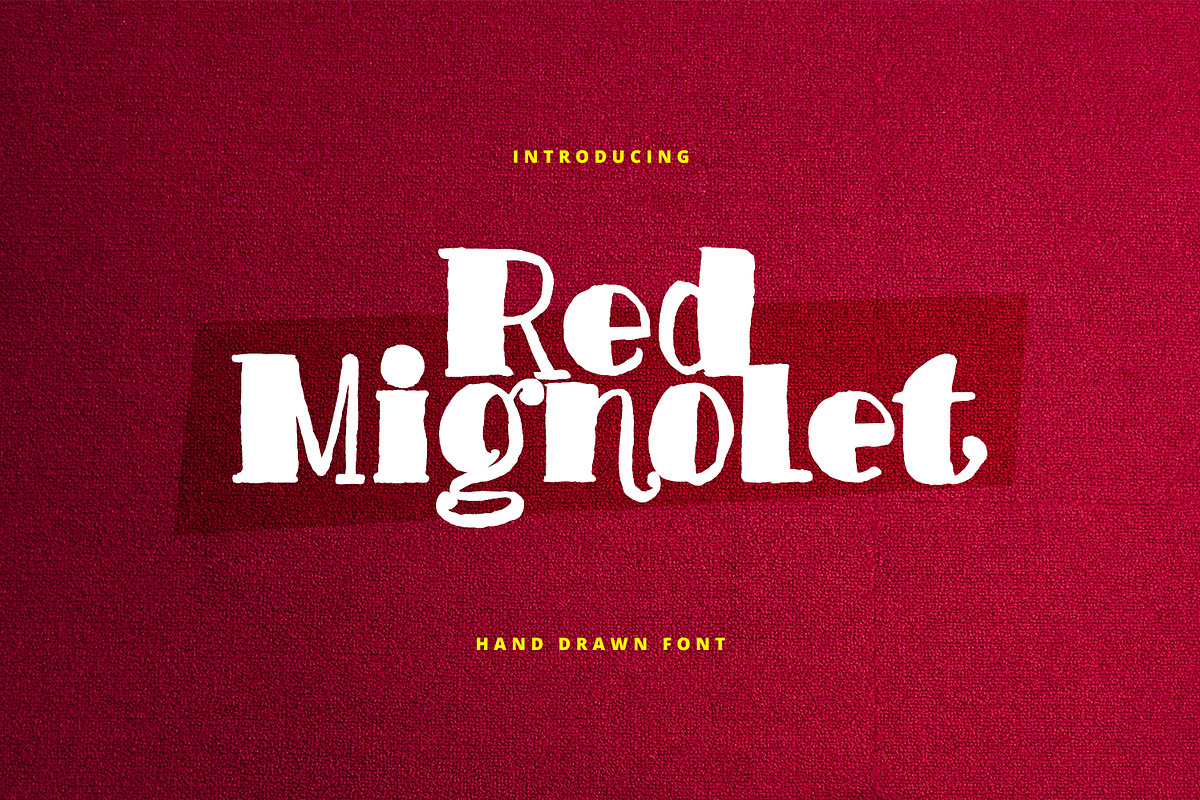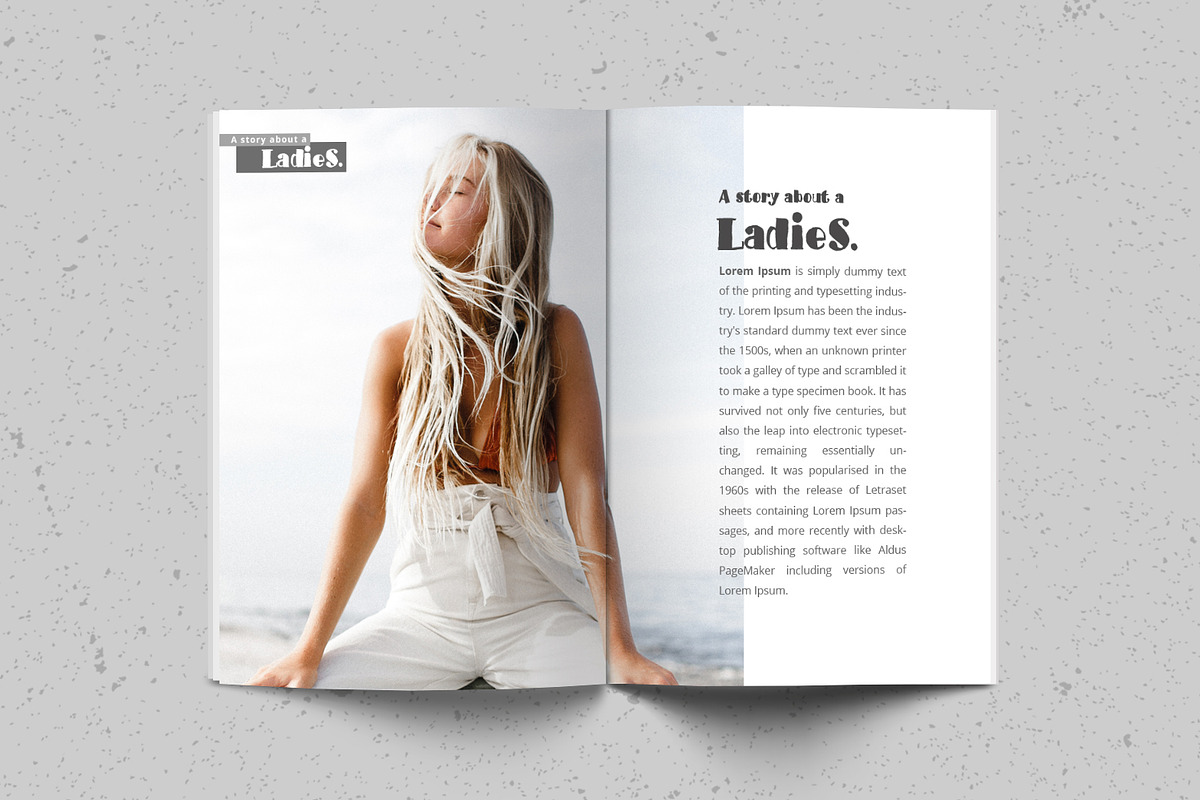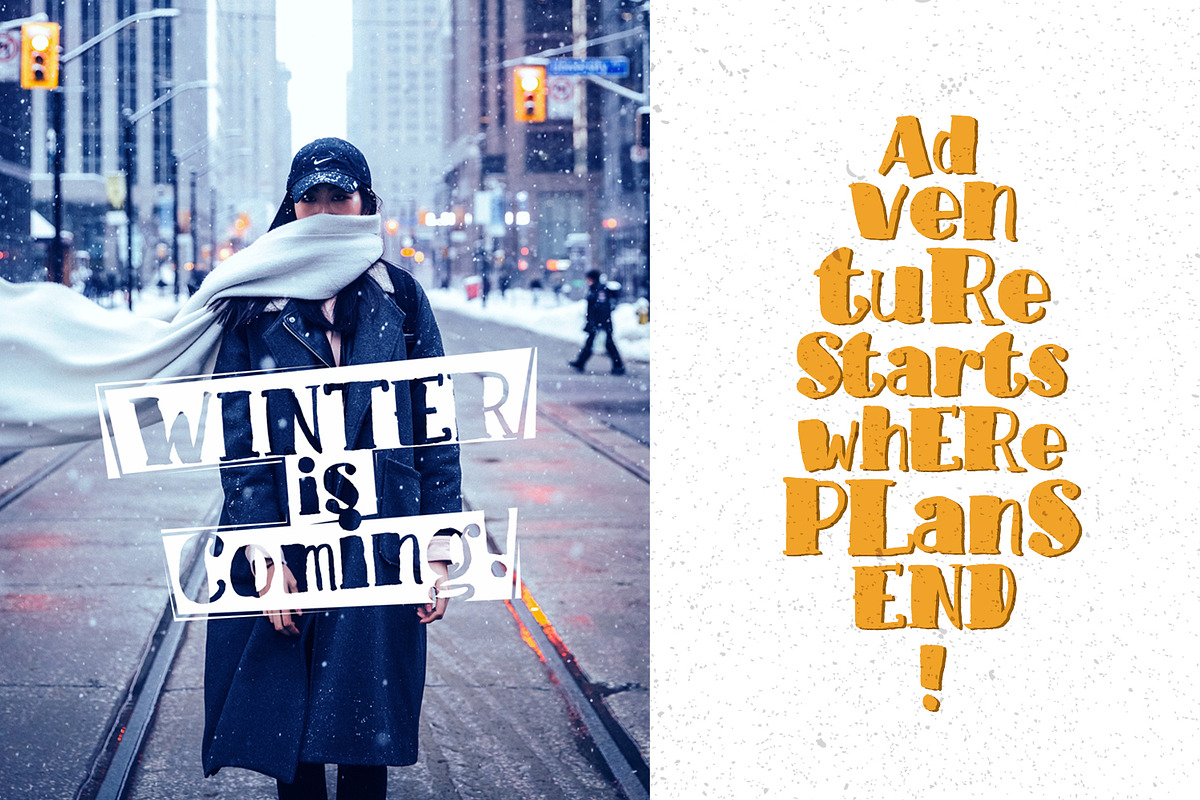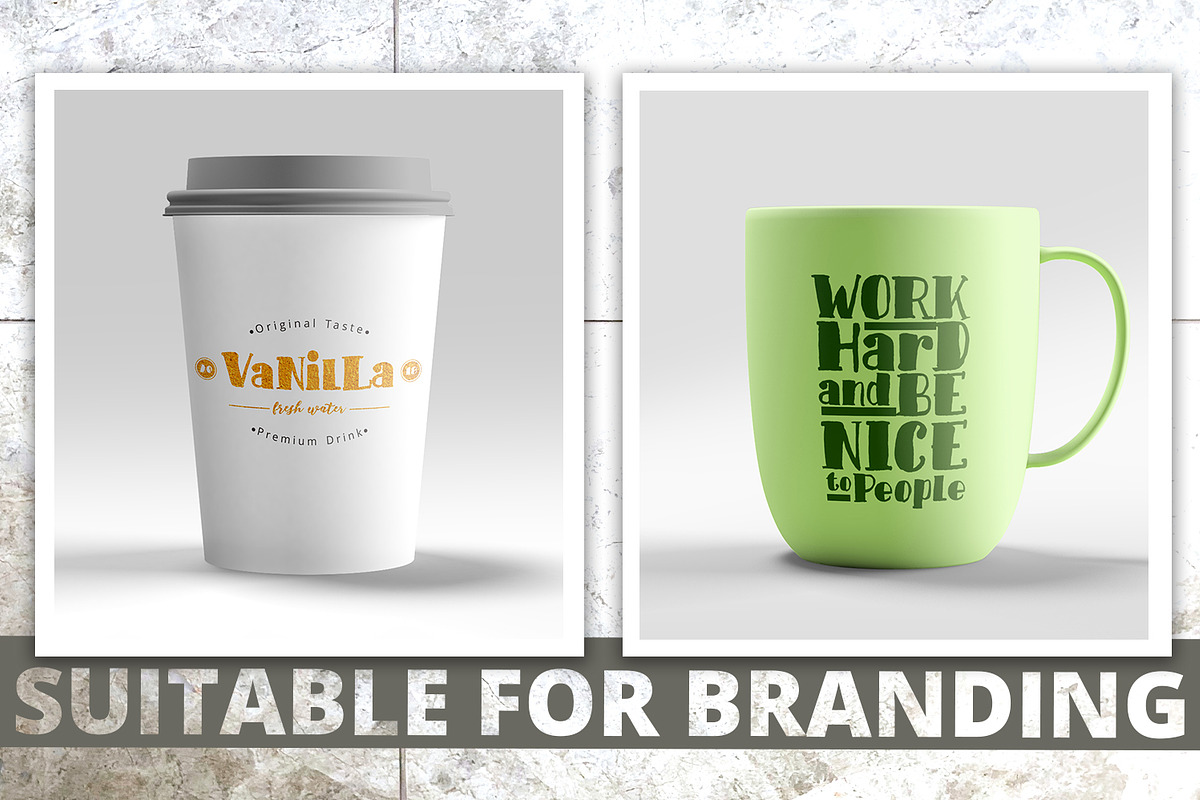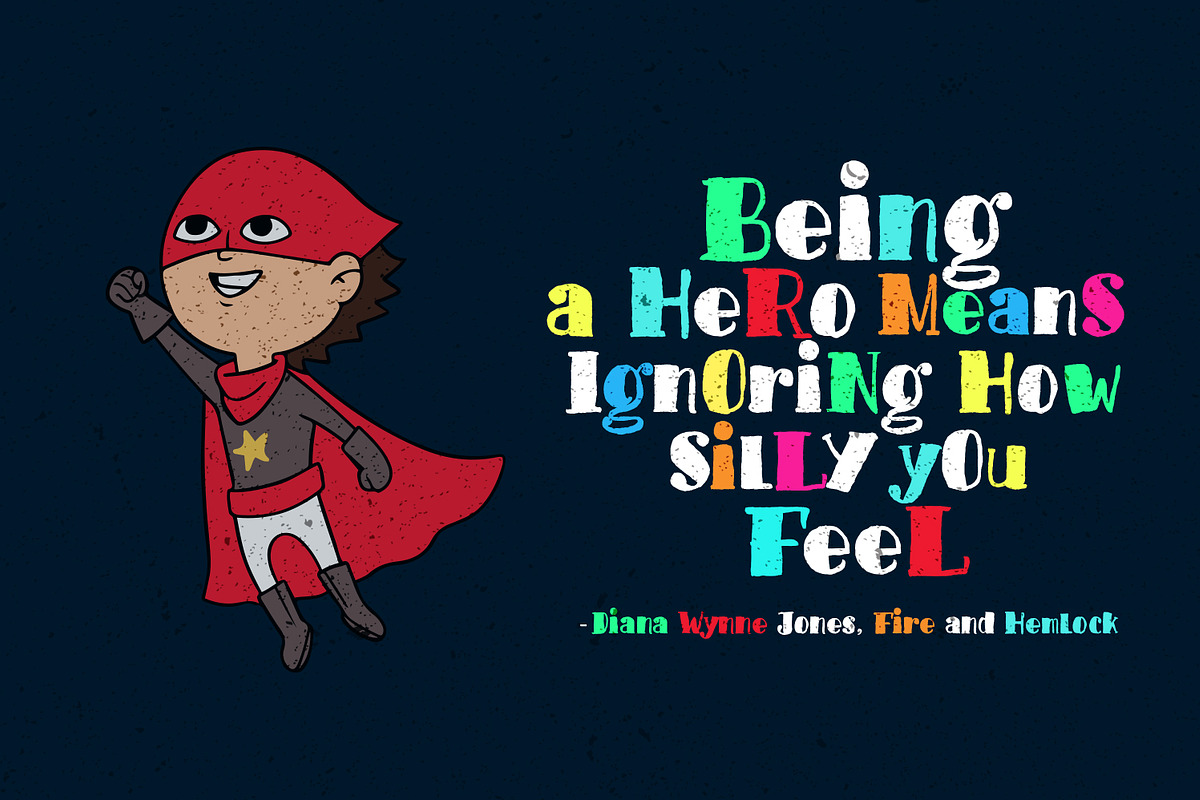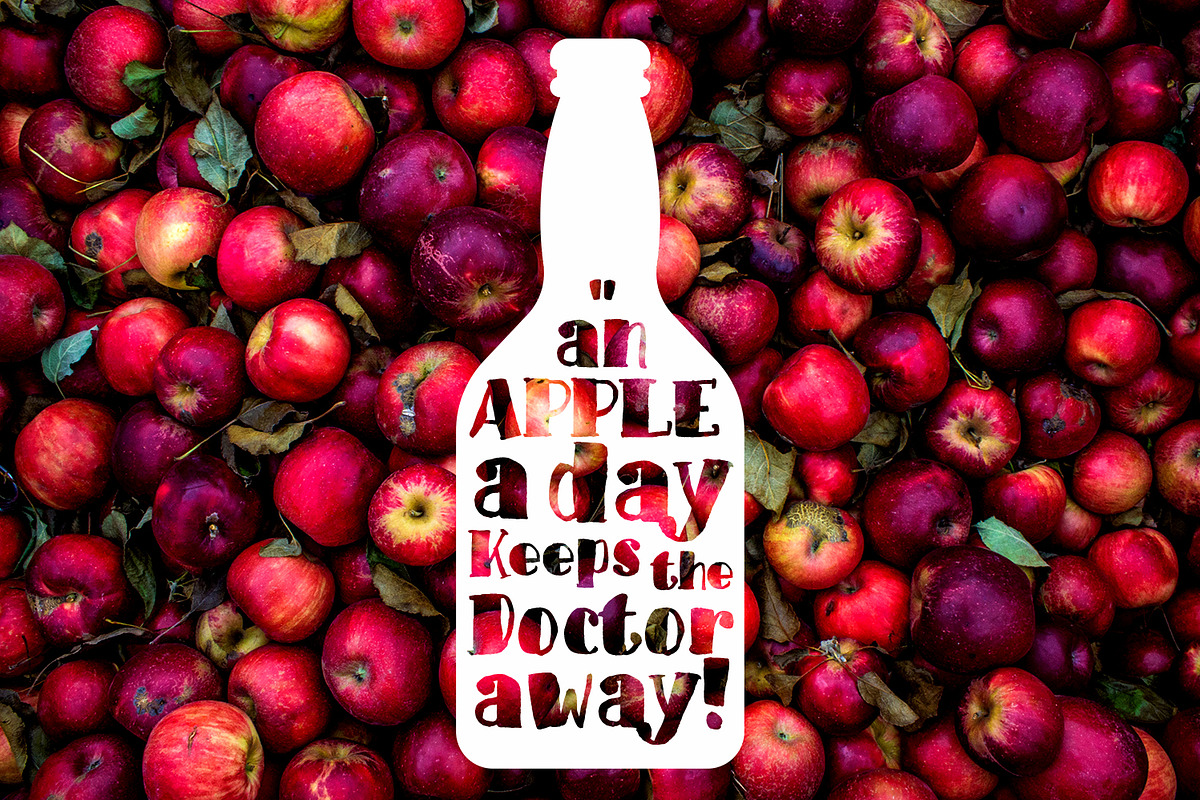
Red Mignolet! Funny Font
Introducing Red Mignolet! Funny Font!
Red Mignolet is a hand-drawn slab type brush font. This font adopts a bold, firm, natural and trendy style. Very suitable to meet your design and packaging product needs at this time, especially when the current trend is Branding on MUG or CUP with natural fonts like painted. Please try!
With a style like this, this font will be suitable in use for logo's, branding projects, homeware designs, product packaging, mugs, quotes, posters, shopping bags, logo's, t-shirts, book covers, name card, invitation cards, greeting cards, and all your other lovely projects.